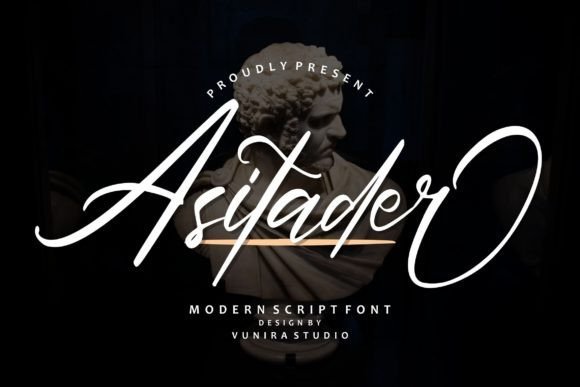
The Perfect Touch: Elevating Your Designs with Asitader Font
There’s nothing quite like the feeling of bringing a design to life. You’ve poured your heart and soul into every detail, and suddenly, it all comes together in a beautiful, cohesive piece. But what’s the secret ingredient that takes your design from good to great? For many of us, it’s all about the typography. And that’s where the Asitader Font comes in – a stunning script font that adds a touch of elegance and sophistication to any project.
With its perfect balance of form and function, the Asitader Font is the perfect tool for designers looking to elevate their work. Whether you’re working on a wedding invitation, a logo, or a marketing brochure, this font is sure to impress. And with its PUA encoding, you’ll have access to a world of glyphs and ligatures to really make your design stand out.
Key Features of Asitader Font
- Unique Characteristics: Asitader Font features a unique, hand-drawn design with intricate details and flourishes, making it ideal for creative and artistic applications.
Asitader Font Review
As a designer, I was excited to dive into the Asitader Font and see what it had to offer. Here’s my honest review.
- The Asitader Font has a unique and stylish aesthetic that sets it apart from other fonts.
- It’s highly legible, making it perfect for body text and long-form content.
- The font’s versatility allows it to work well in a variety of contexts, from digital displays to print materials.
- The font’s weights and styles offer a range of options for customization and flexibility.
- The Asitader Font may not be the best choice for situations where a more traditional or conservative font is needed.
- The font’s stylization can make it difficult to read in certain contexts, particularly at smaller sizes.
- The font’s range of weights and styles, while versatile, can also make it overwhelming to navigate and select the perfect combination.
The Asitader Font is a solid choice for designers looking for a stylish and versatile font. While it may not be perfect for every situation, its unique aesthetic and legibility make it a great option for a wide range of projects.
Tips for Getting the Most Out of Asitader Font
For optimal results, use the Asitader font in bold or italic styles to add emphasis and contrast to your designs. You can also experiment with different font sizes and combinations to create a unique visual effect.
The Asitader font is ideal for use in branding, logos, and typography-based designs. It is also suitable for use in digital signage, posters, and other visual communications where a distinctive and modern look is desired.